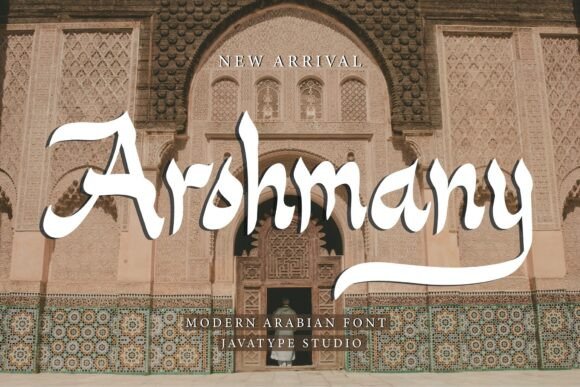
I still remember the frustration of working on a project, hours spent crafting the perfect design, only to realize that the font I was using just wasn’t cutting it. The client wanted something elegant, something that would make their brand stand out, but I was stuck with a bland, generic typeface. That’s when I discovered Arohmany, an exquisite Arabic font that would change the game for me and my design endeavors.
Introducing Arohmany: A Masterpiece of Arabic Calligraphy
Arohmany is more than just a font – it’s an art form. Meticulously crafted with a calligraphy pen, this unique typeface seamlessly blends classic Arabic characters with modern stylistic elements. The result is an elegant fusion of past and present, perfect for a range of creative ventures. Whether you’re designing eye-catching banners, trendy t-shirts, compelling photographic captions, engaging YouTube channels, or impactful advertisements, Arohmany is the perfect fit.
So, what makes Arohmany so special? Let’s dive into the details:
- ✨ Elegant and sophisticated design that’s perfect for luxury brands or high-end projects
- ✅ Extensive character set, including Arabic, English, and other languages
- ⚡️ Highly legible, even at small font sizes
- 🎨 Unique stylistic alternates and glyphs to add a personal touch to your designs
But, like any font, Arohmany isn’t perfect. Here are a few quirks to keep in mind:
- ⚠️ Limited support for certain languages or scripts
A Practical Guide: Using Arohmany in Your Designs
The Story Behind Arohmany: Designer Inspiration
Arohmany was created by a team of designers who wanted to bring the beauty of Arabic calligraphy to the digital world. Inspired by traditional Arabic art and architecture, they crafted a font that would blend classic elegance with modern style. The result is Arohmany, a font that’s both timeless and contemporary.
| What languages does Arohmany support? | Arohmany supports Arabic, English, and other languages. |